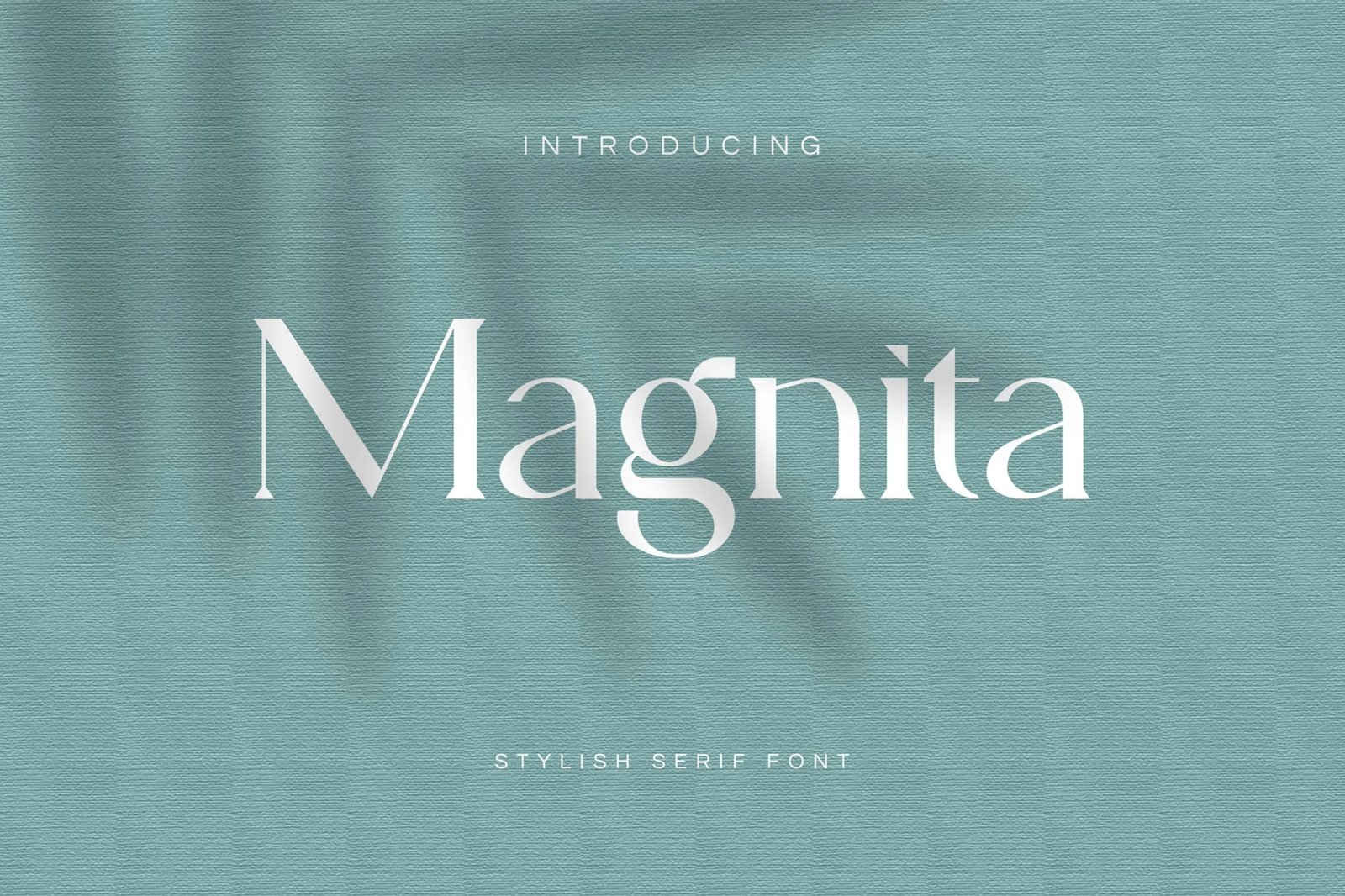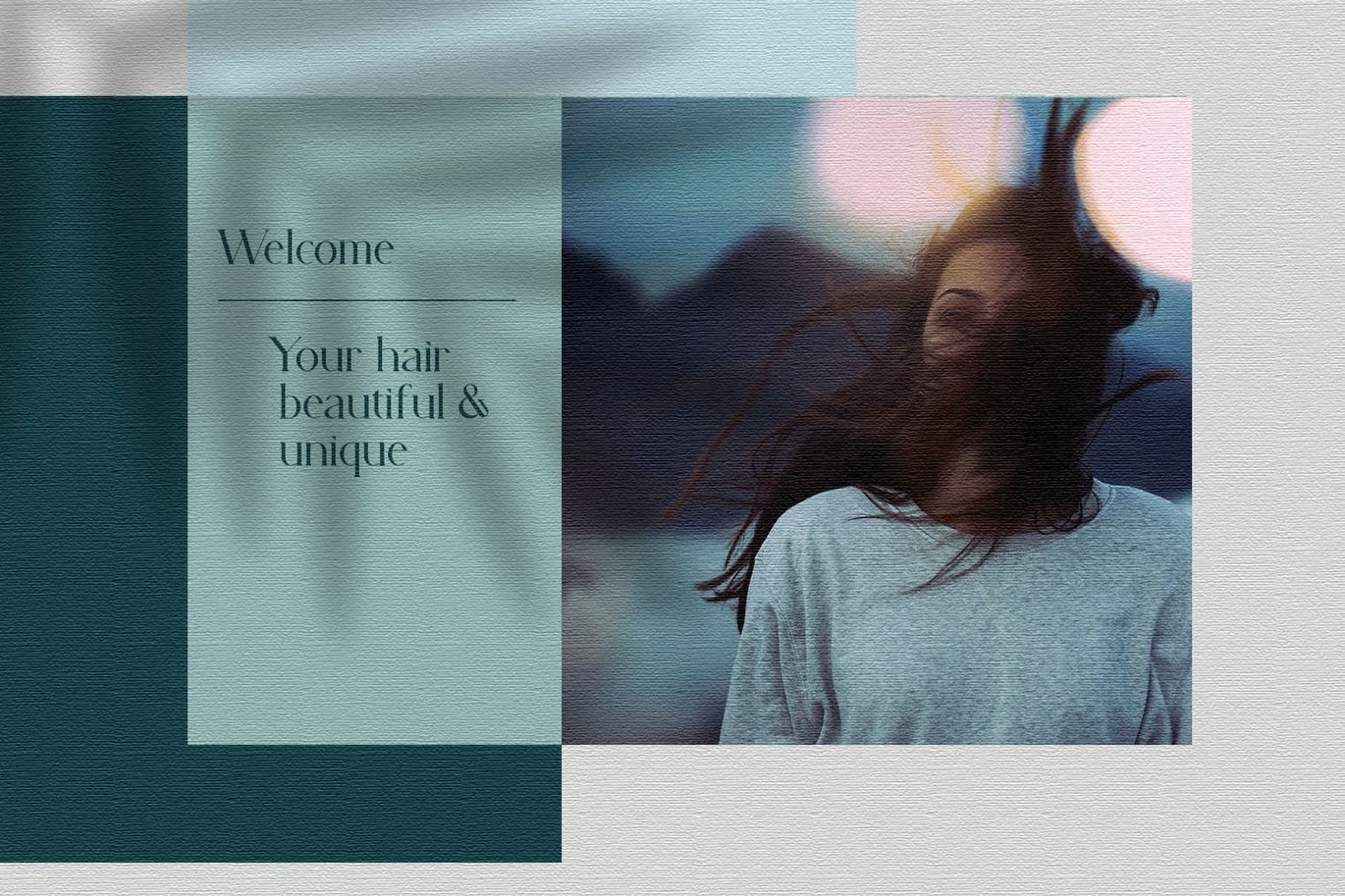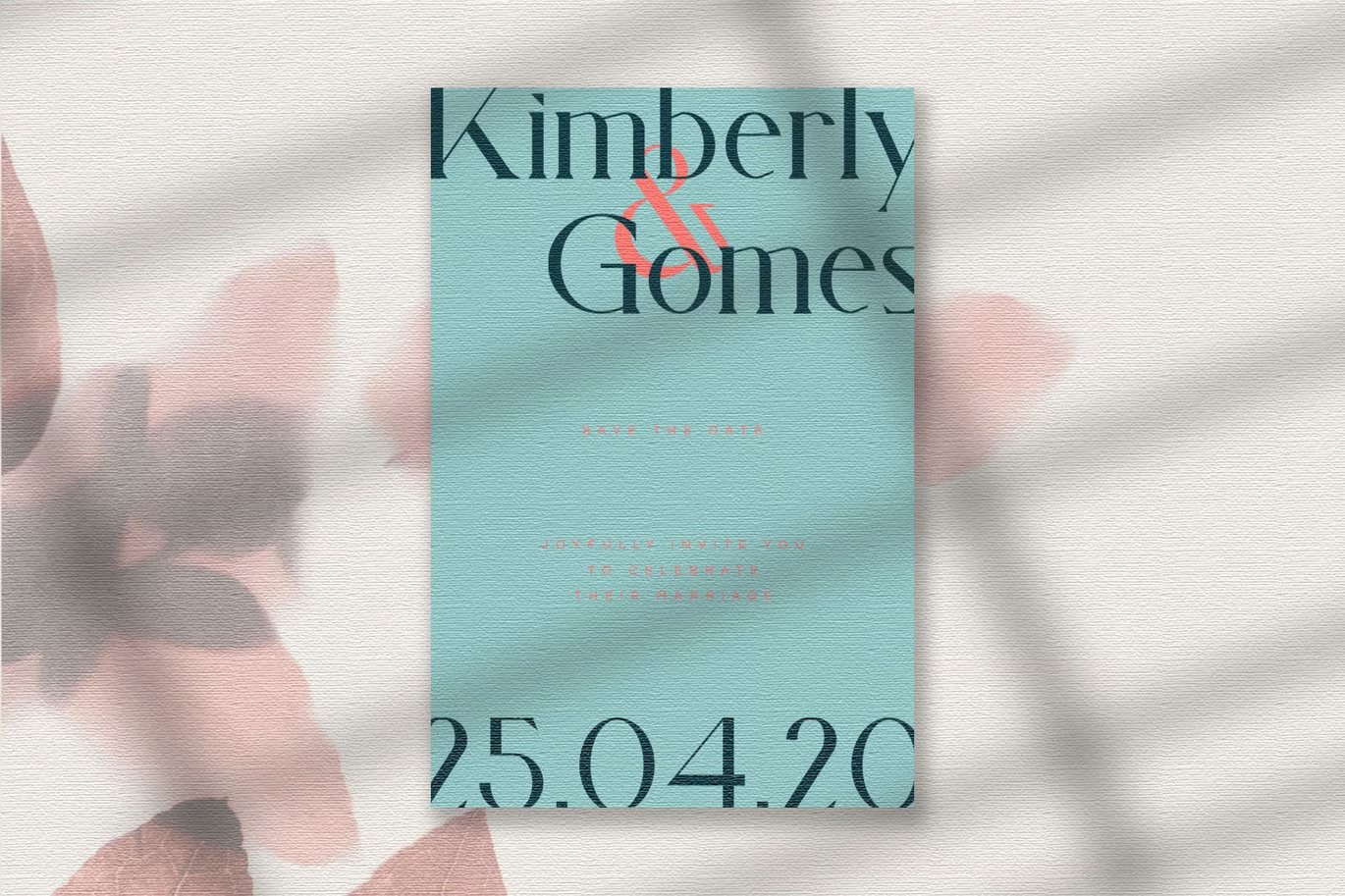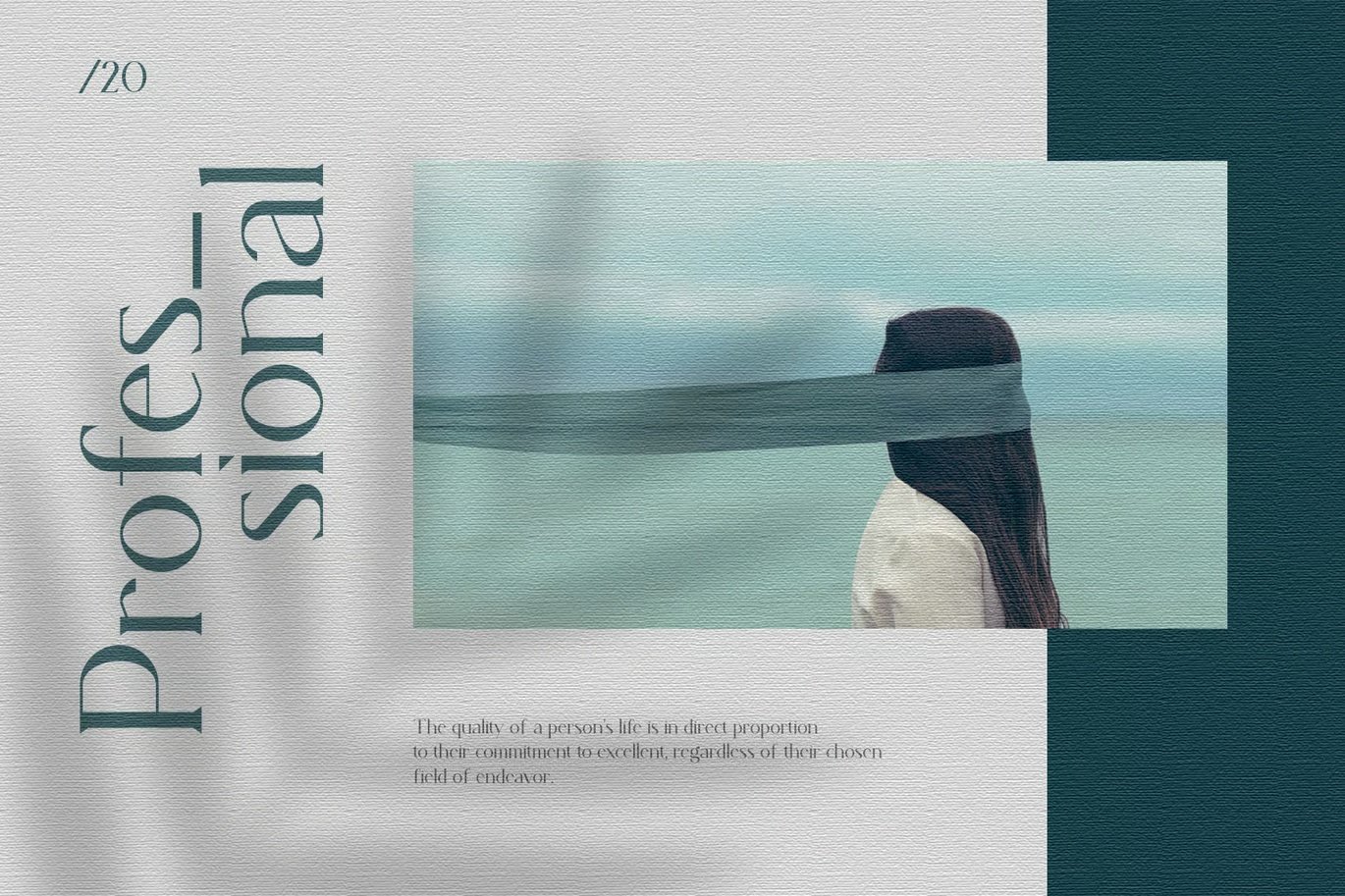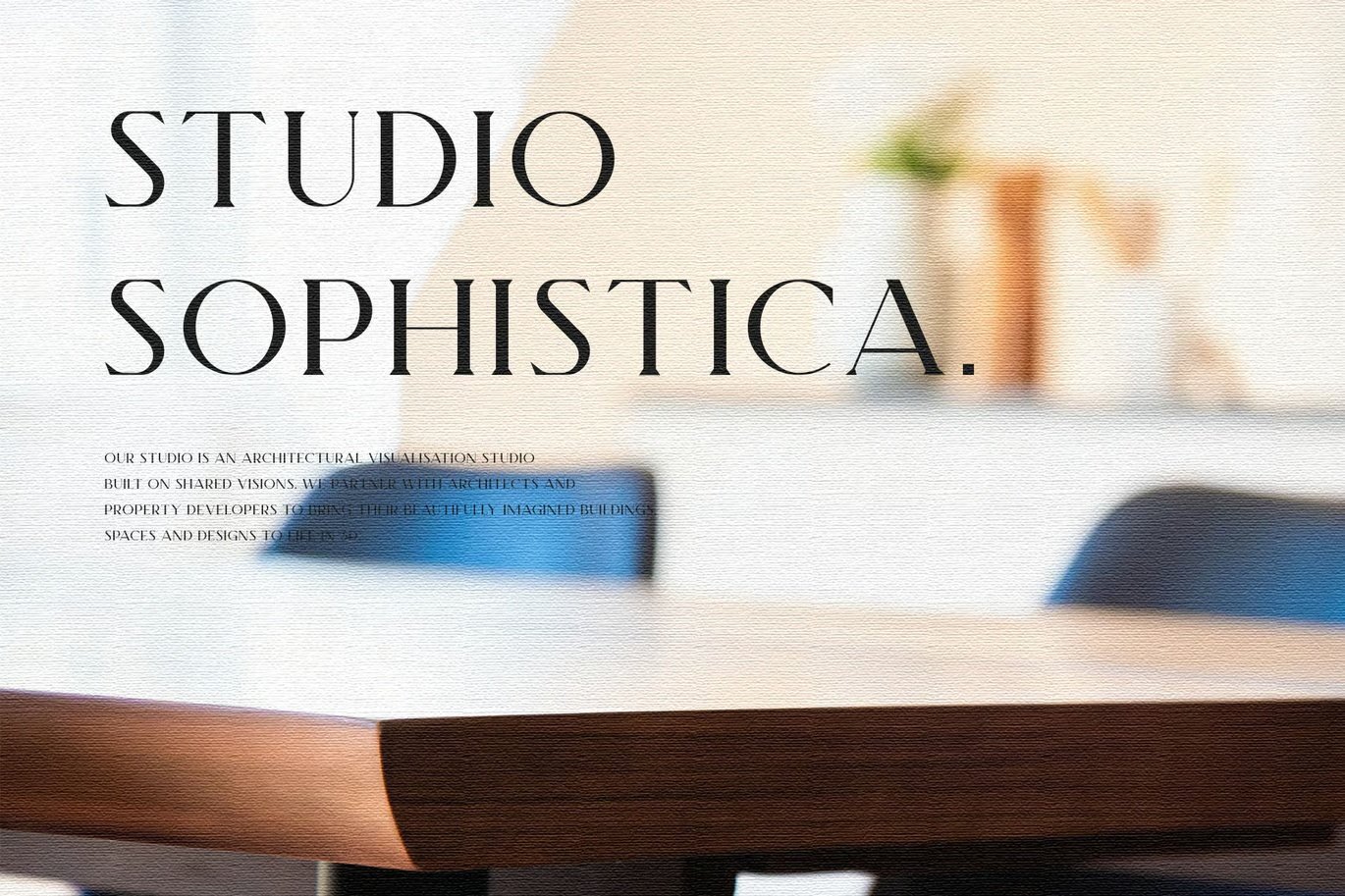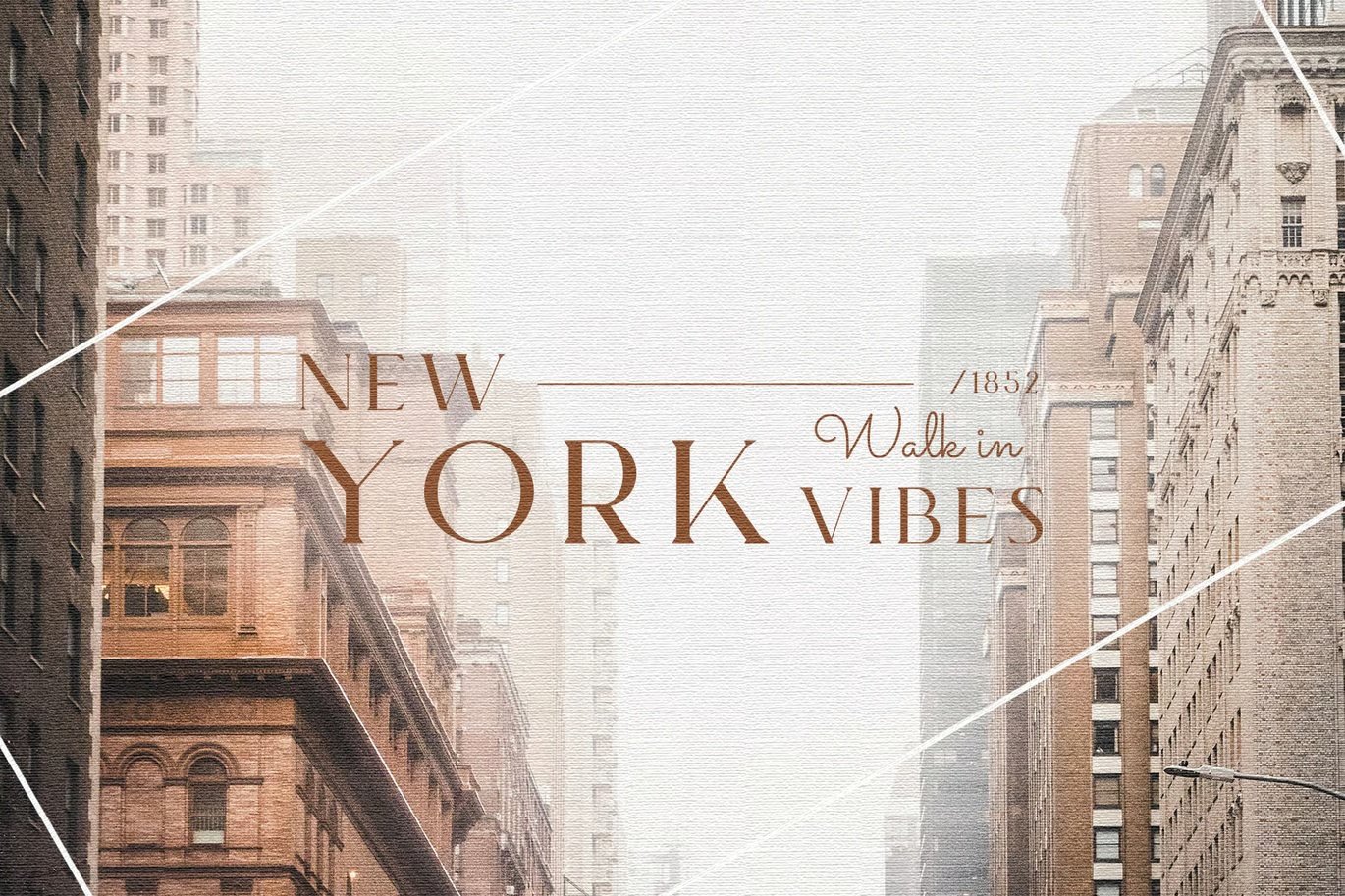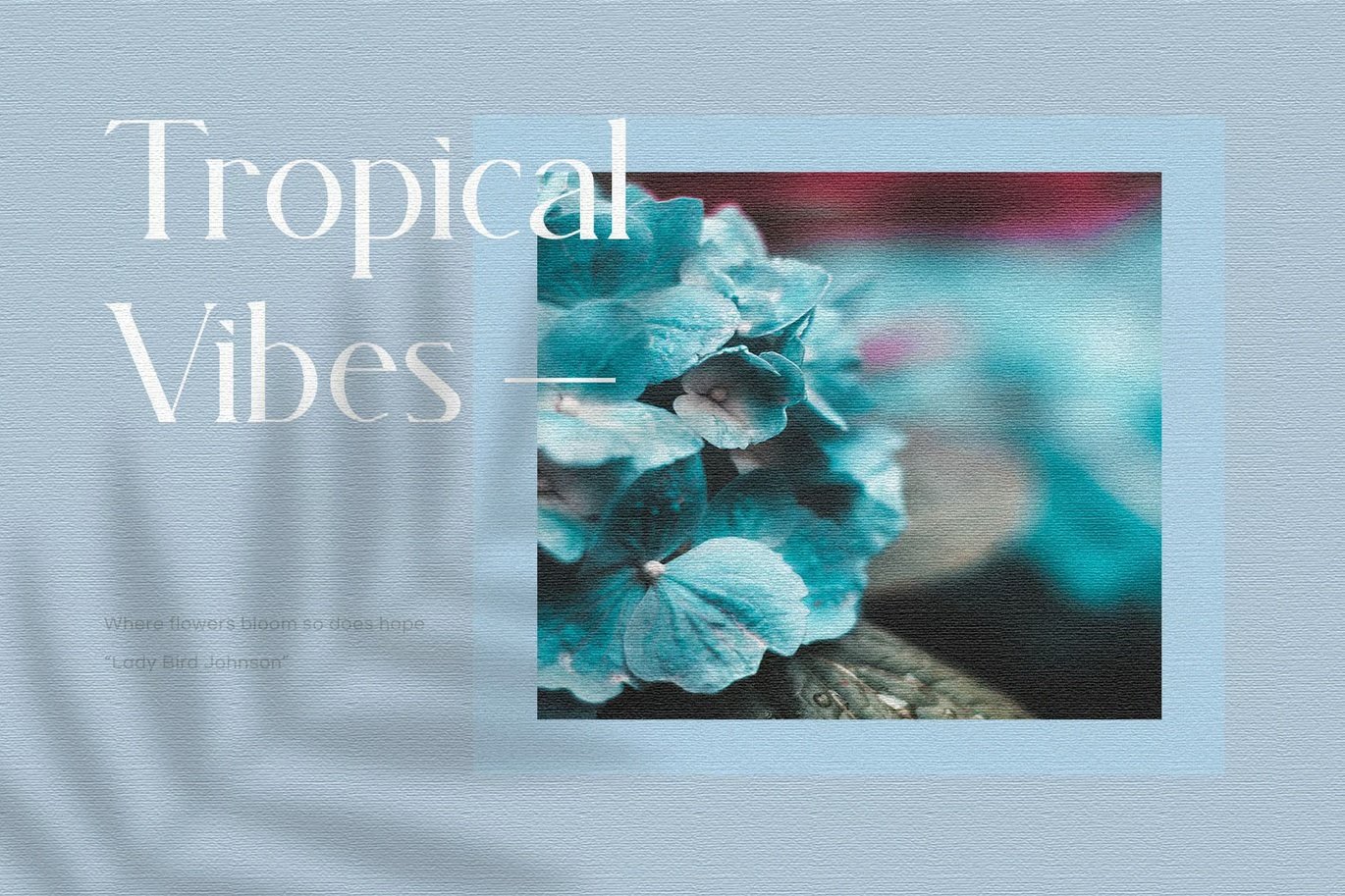
Magnita serif font this is a serif type font, this font is suitable for use with premium, elegant, luxury needs. such as hotels, salons, restaurants, cafes and others. make everything beautiful and charming with Magnita Font — FILES Included